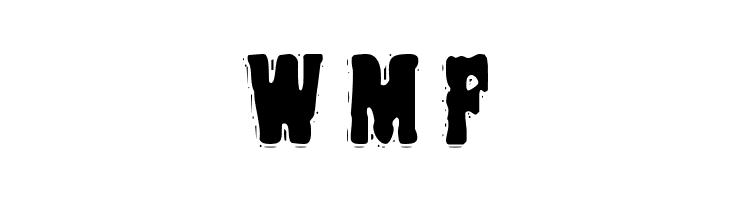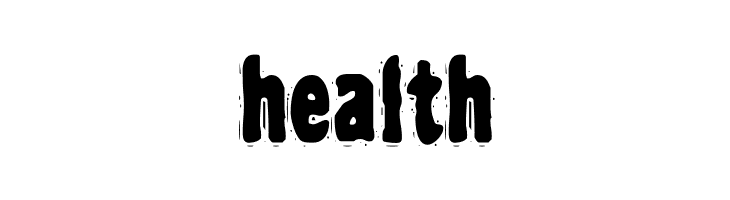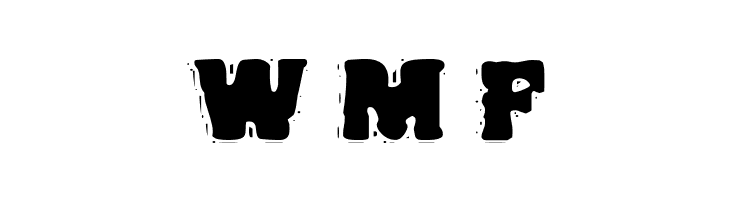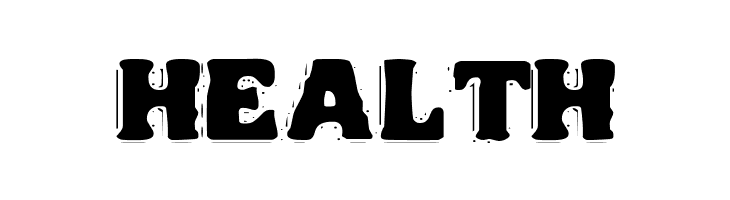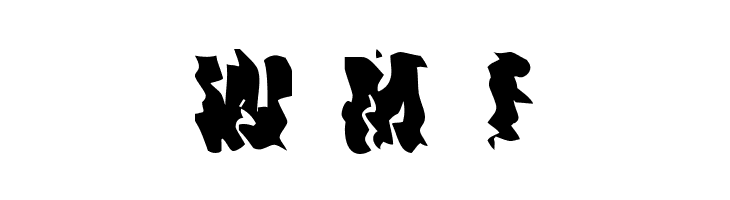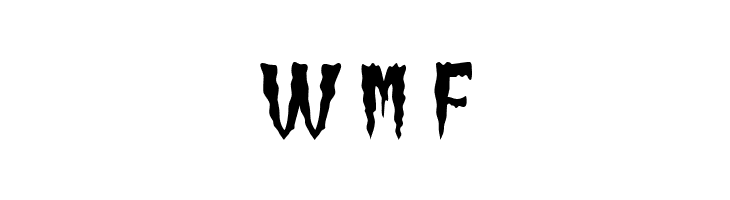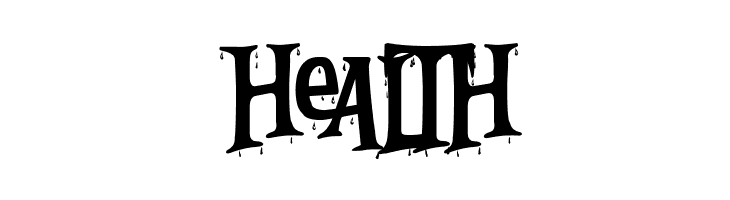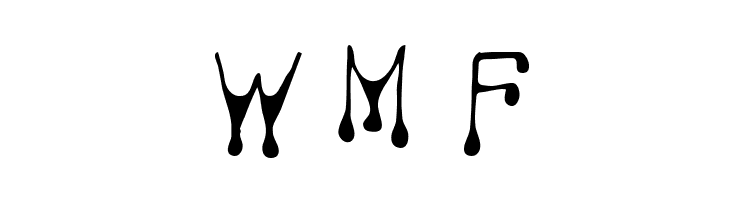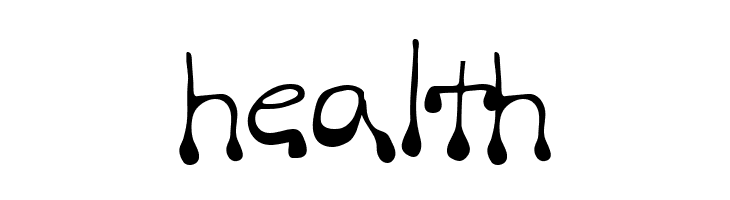
A bold, horror-themed font with dripping, jagged letters.
A bold, dripping font with a horror-themed, melting appearance.
A bold, dripping font with a dramatic and fluid style.
A dripping, horror-themed font with a melting appearance.
A bold, liquid-like font with a dripping, playful style.
A playful, bold font with rounded, dripping characters.
A spooky, dripping font perfect for horror themes.
A bold, dripping font with a spooky, shadowed appearance.
A wild, jagged font with a dripping, dynamic style.
A bold, dripping font with a horror-inspired, eerie aesthetic.
A bold, horror-themed font with a dripping, eerie style.
A bold, decorative font with a dripping, playful style.
A playful, spooky font with melting, dripping characters and bold outlines.
A bold, dripping font perfect for horror and gothic themes.
A bold, dripping font with a spooky, horror-themed aesthetic.
A bold, grungy font with a dripping effect, perfect for horror or punk themes.